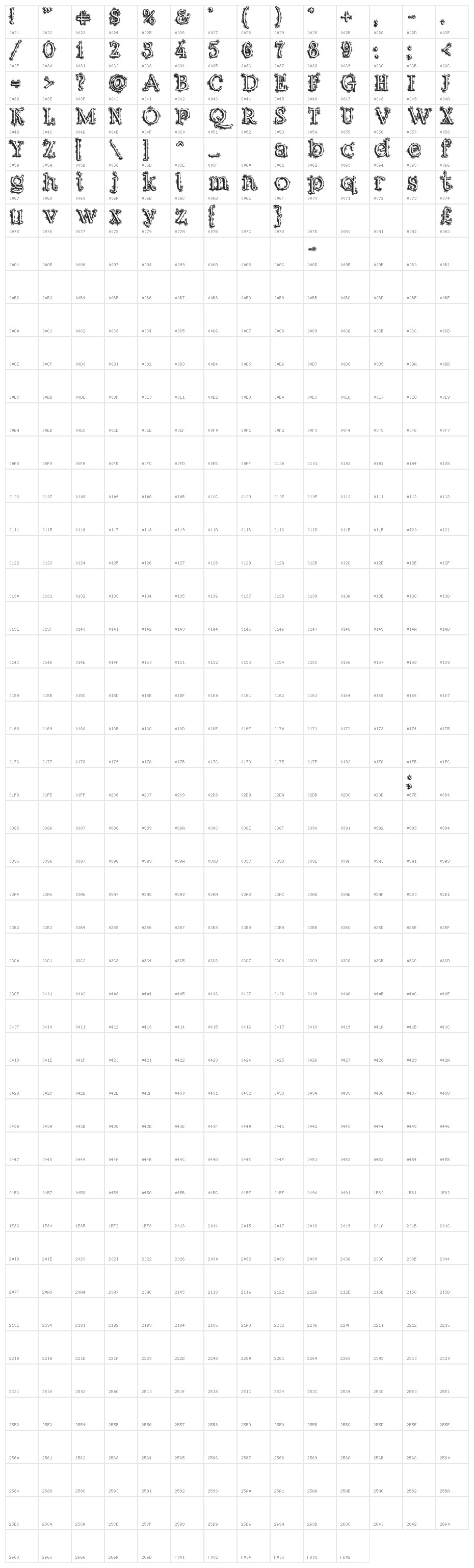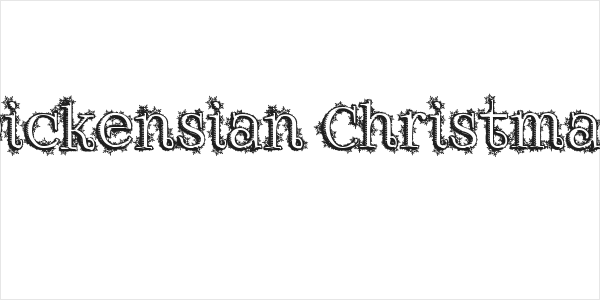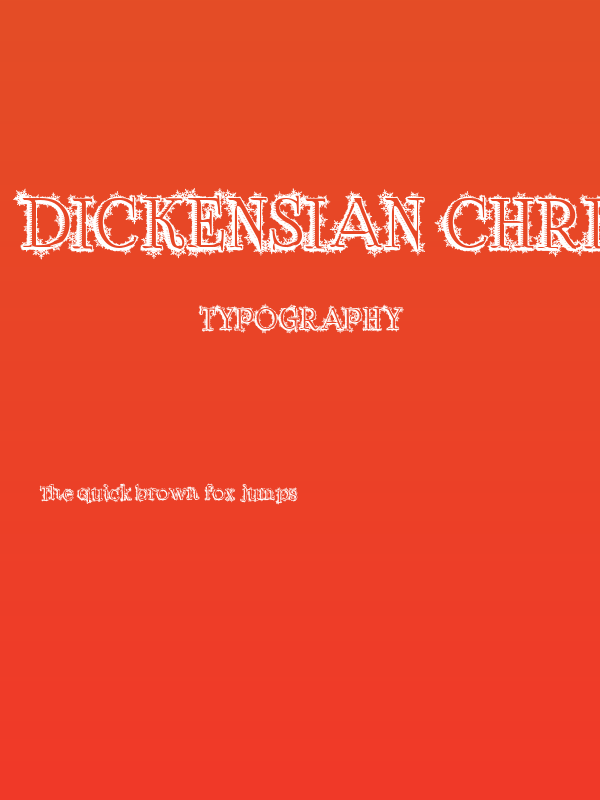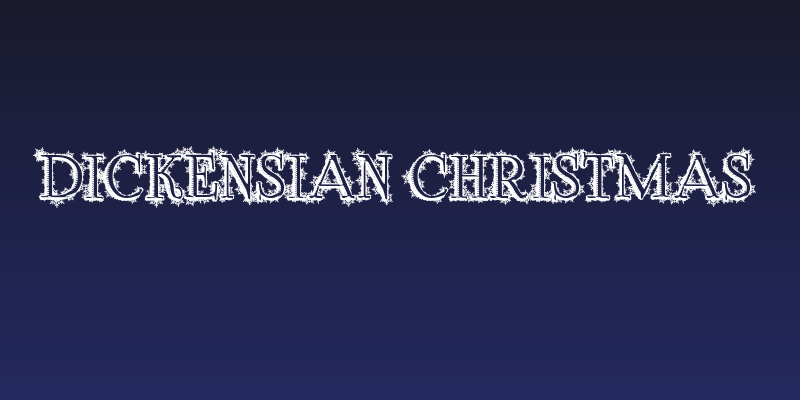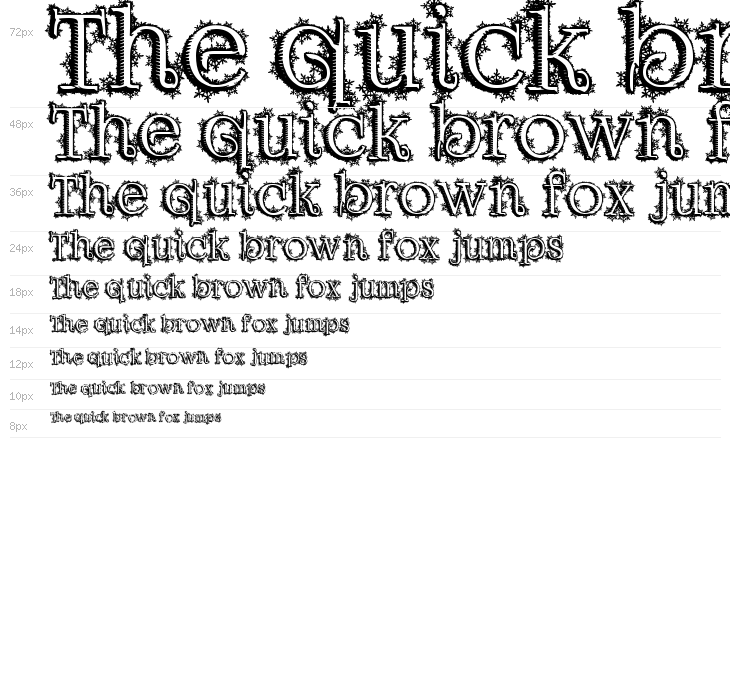
Dickensian Christmas Font
Dickensian Christmas Description
This font exudes a festive and ornate style, reminiscent of a classic Victorian Christmas. Each character is adorned with intricate, decorative elements that evoke the imagery of snowflakes or frosted patterns. The uppercase and lowercase letters maintain a consistent design, with a playful yet elegant flair. The numbers and special characters are equally embellished, making the font suitable for holiday-themed projects. Its unique style captures the essence of a Dickensian Christmas, blending nostalgia with a touch of whimsy.
| Proposed Projects | Ideal for holiday cards, festive invitations, seasonal branding, and decorative posters. |